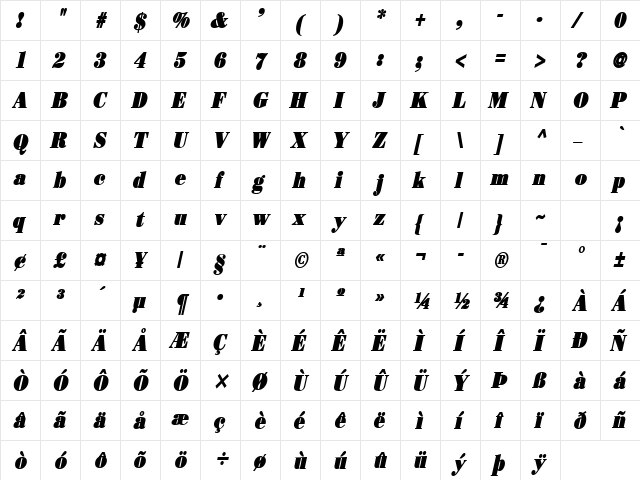
Beau Condensed BoldItalic Font Preview
Design Context for Beau Condensed Typeface
Beau Condensed takes a measured approach to typography — its balanced proportions and neutral character make it a reliable workhorse for both digital and print work. The dynamic lean of this cut emphasises speed and emphasis in any layout. The heavy weight commands attention and anchors typographic hierarchies. The condensed width makes it efficient for tight spaces without sacrificing legibility.
Pro Tip: Use Beau Condensed for emphasis, pull quotes, and subheadings where its slanted energy can add rhythm to the layout.